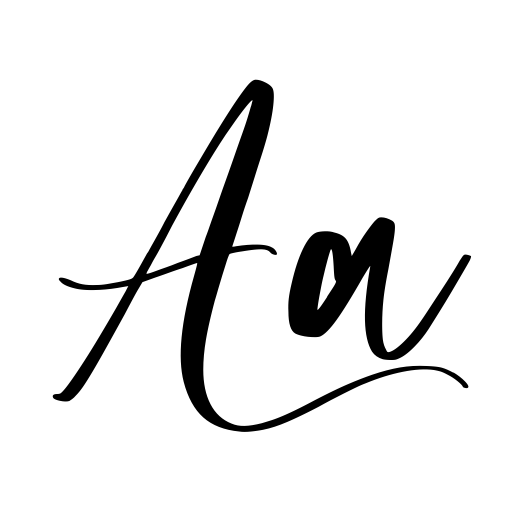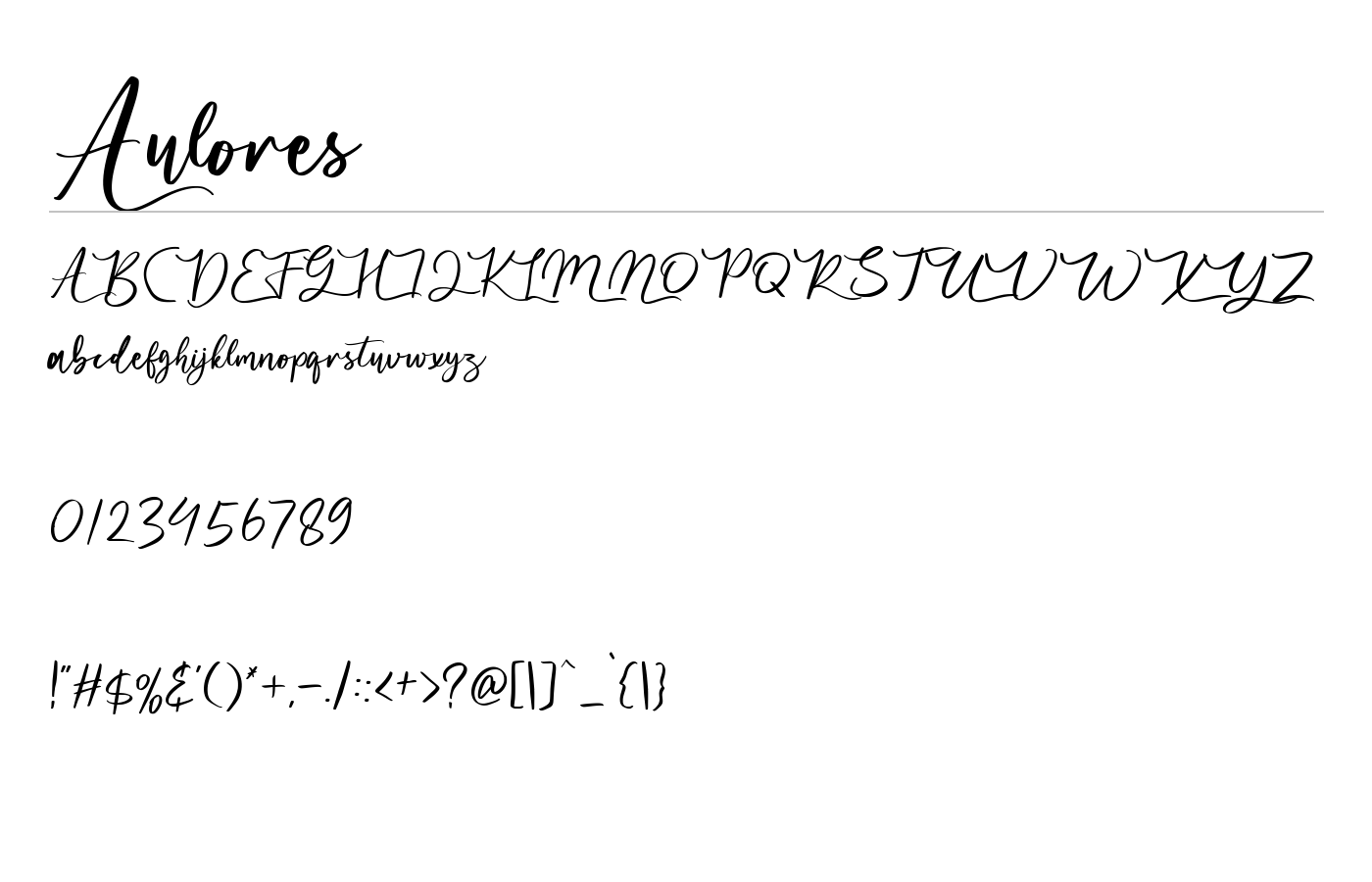
Aulores is an elegant script font that combines flowing, hand-drawn uppercase letters with a playful, brush-style lowercase, creating a dynamic and stylish contrast. Its delicate strokes and smooth curves give it a sophisticated yet approachable feel, making it ideal for branding, invitations, and fashion projects where a personal, artistic touch is desired. This font works beautifully in headlines or decorative text, adding charm and personality without sacrificing readability.
Aulores Font
About Aulores Font